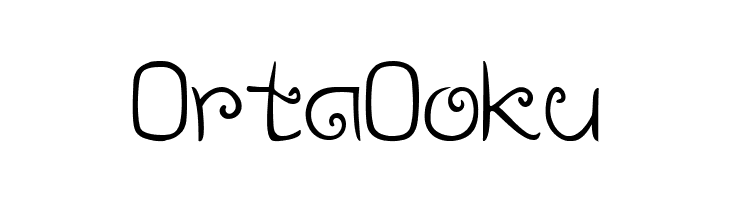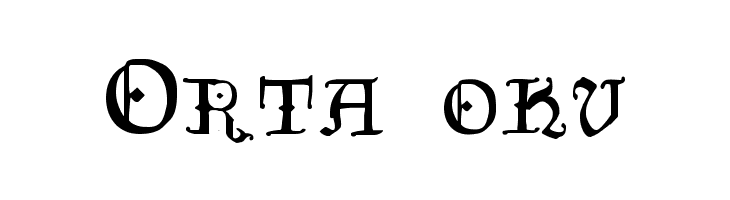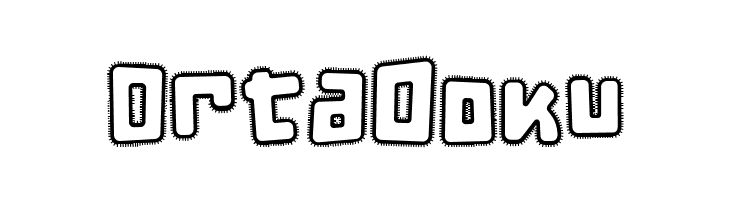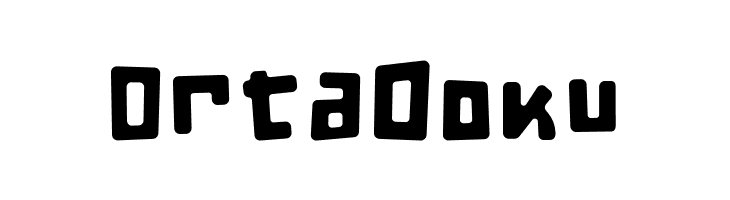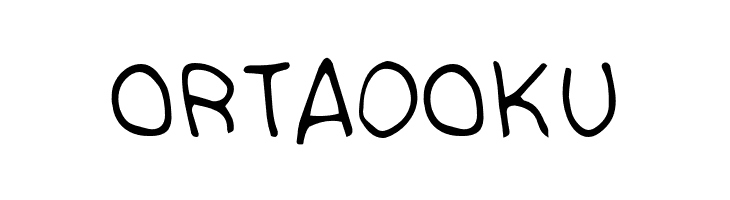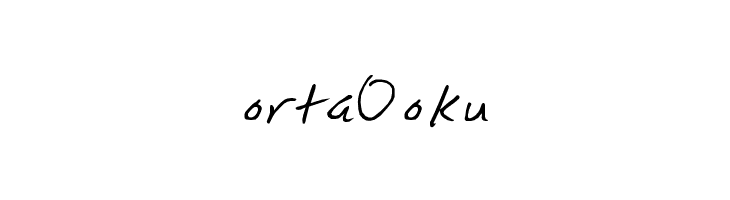
( Vladimir Nikolic - www.coroflot.com/vladimirnikolic )
A bold, decorative font with pronounced serifs and a three-dimensional outline.
An elegant and whimsical font with a blend of classic and modern elements.
( Pisto Casero - Gilberto Moya Perona - www.pistocasero.com )
A whimsical and decorative font with elegant swirls and curls.
( Viktor Szobota )
A playful, casual handwritten font with uneven strokes and a friendly appearance.
( Fonts by D Borneo Inne Veronica )
A whimsical and playful font with curly, decorative elements.
( typO969 - Douglas Lyle - fonts.typo969.net/ )
A casual, handwritten-style font with smooth, flowing strokes.